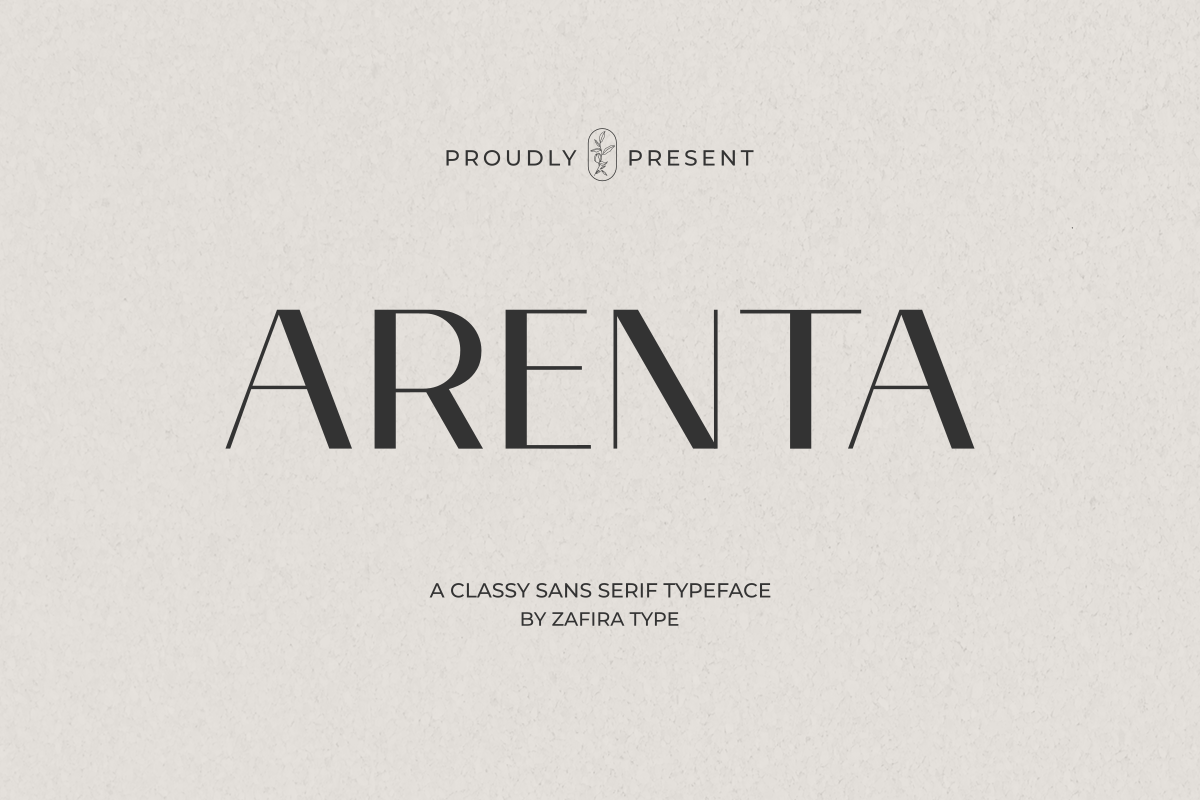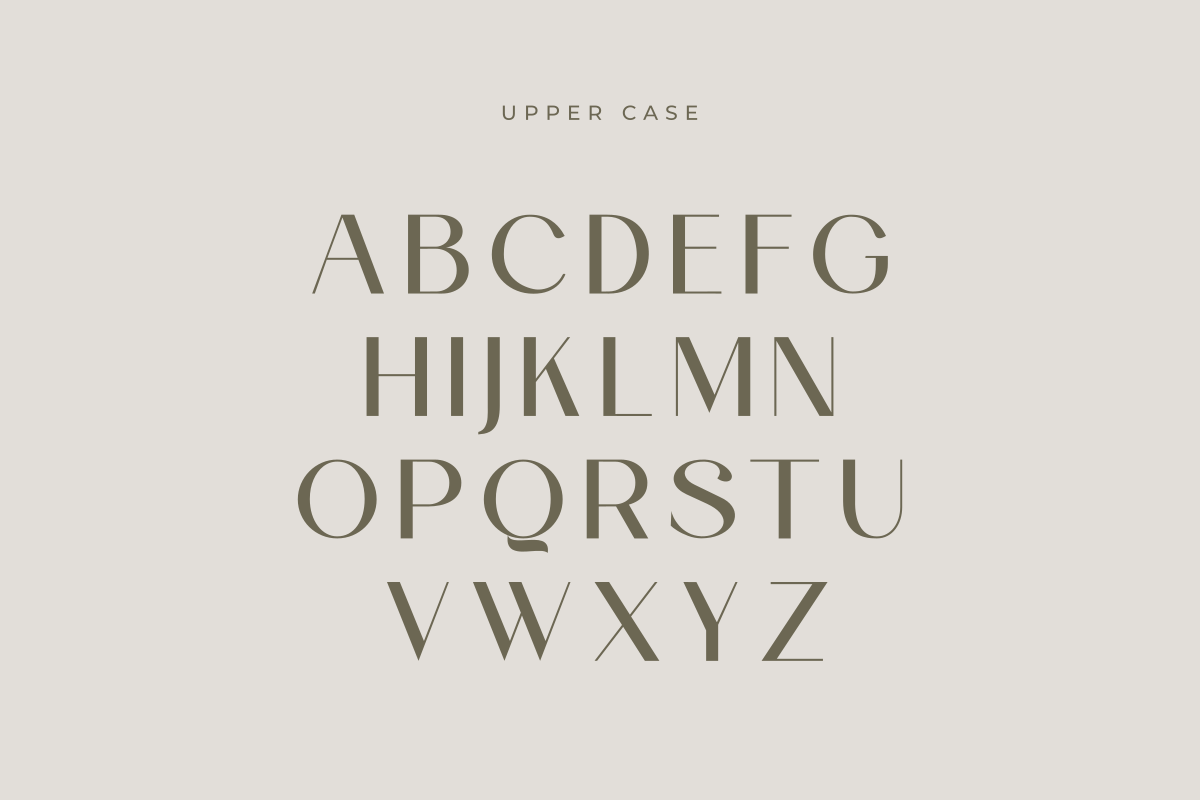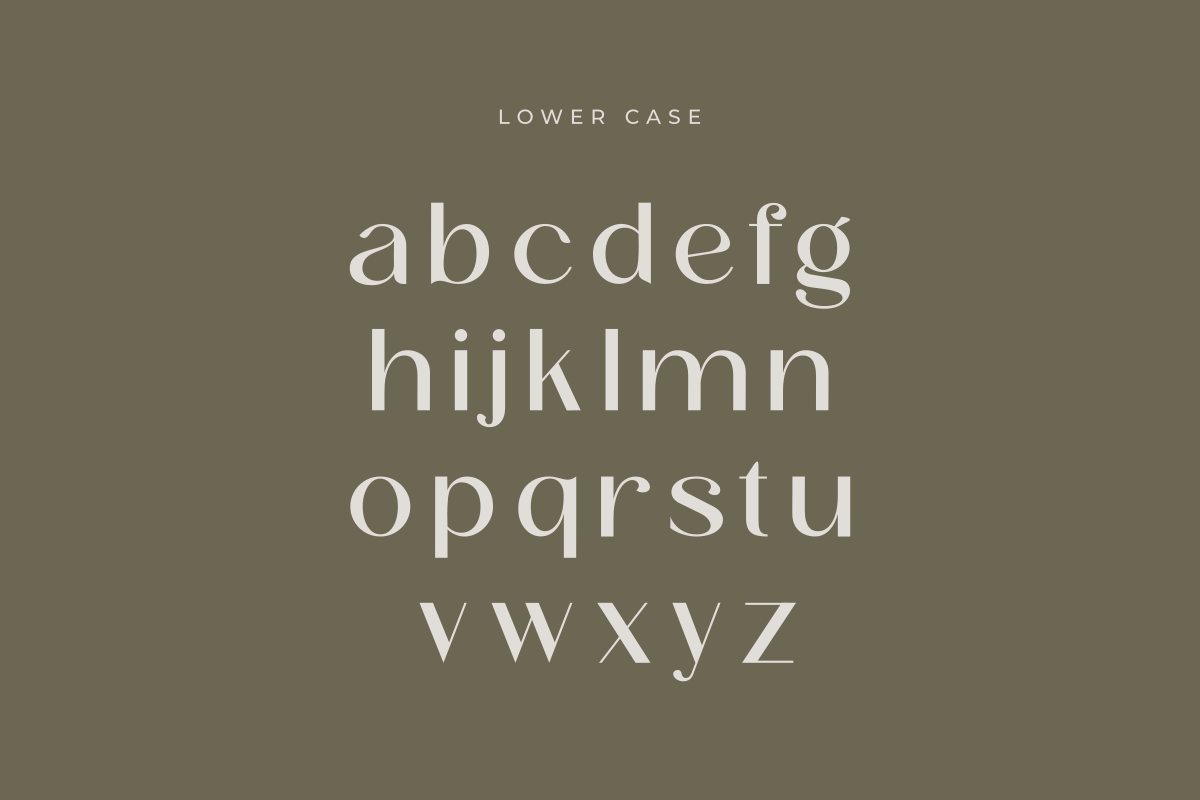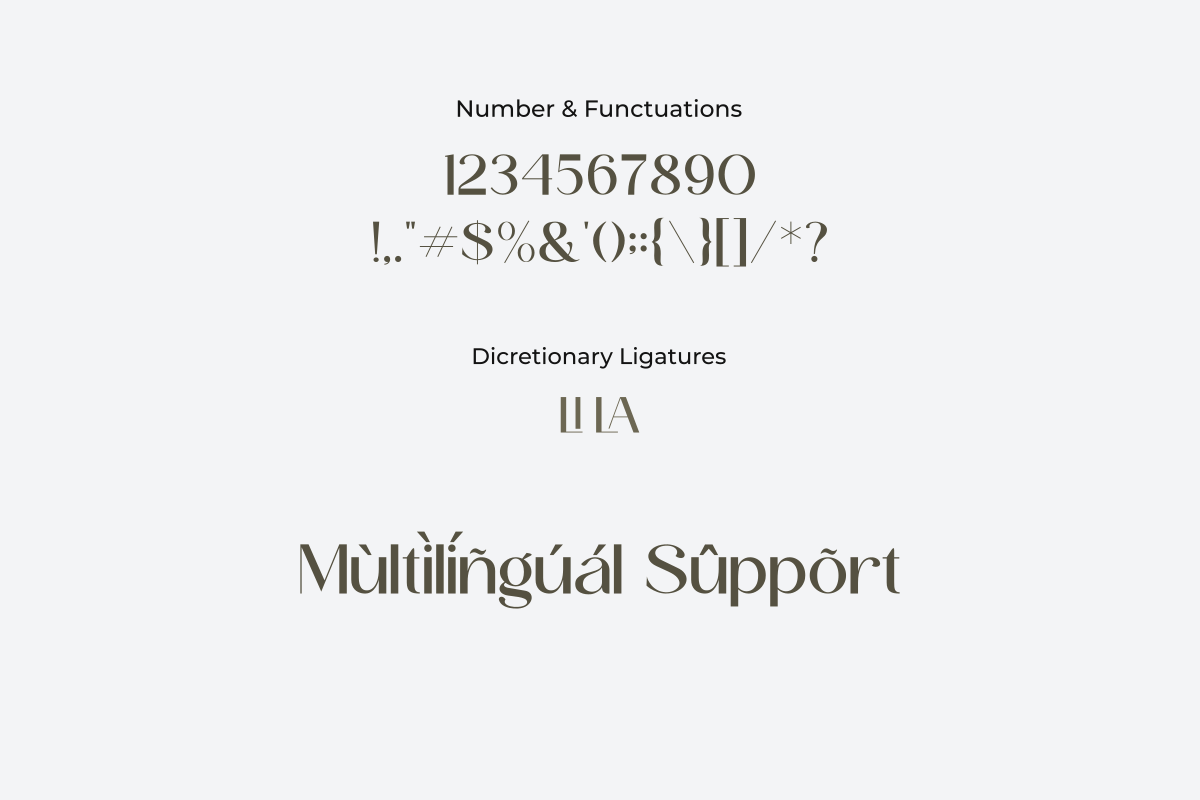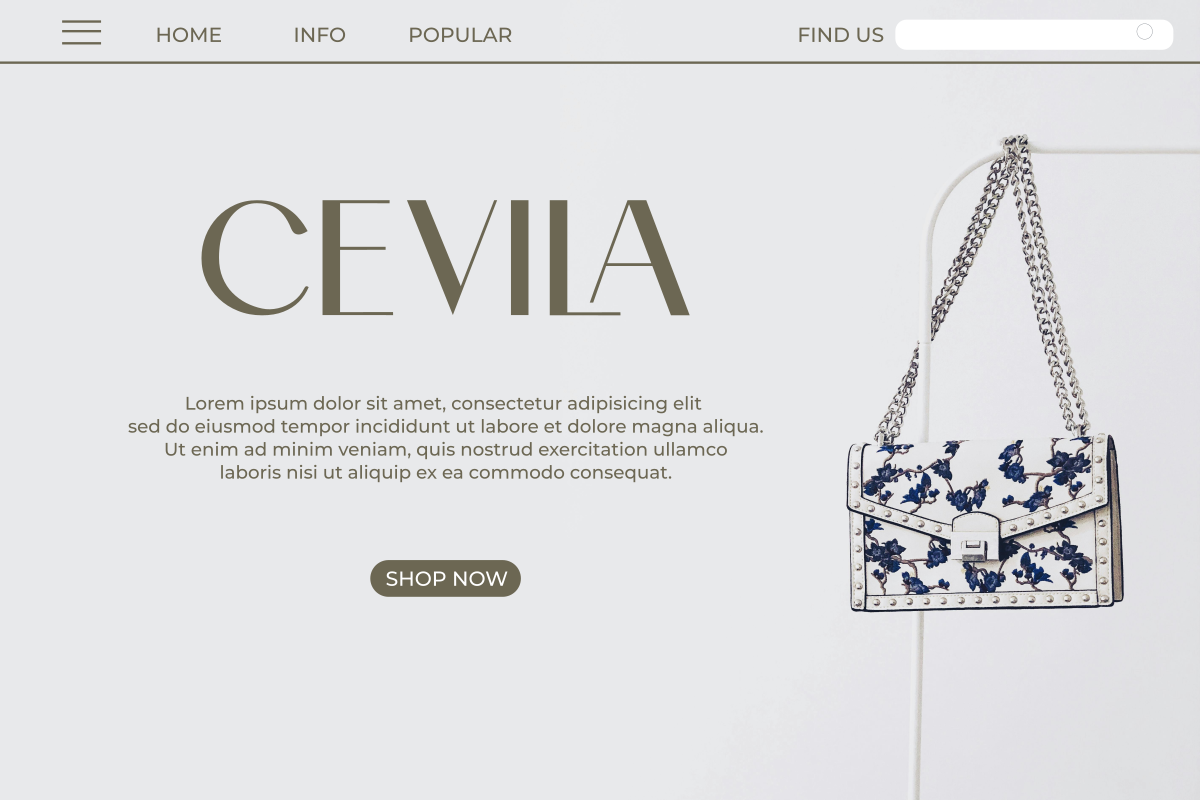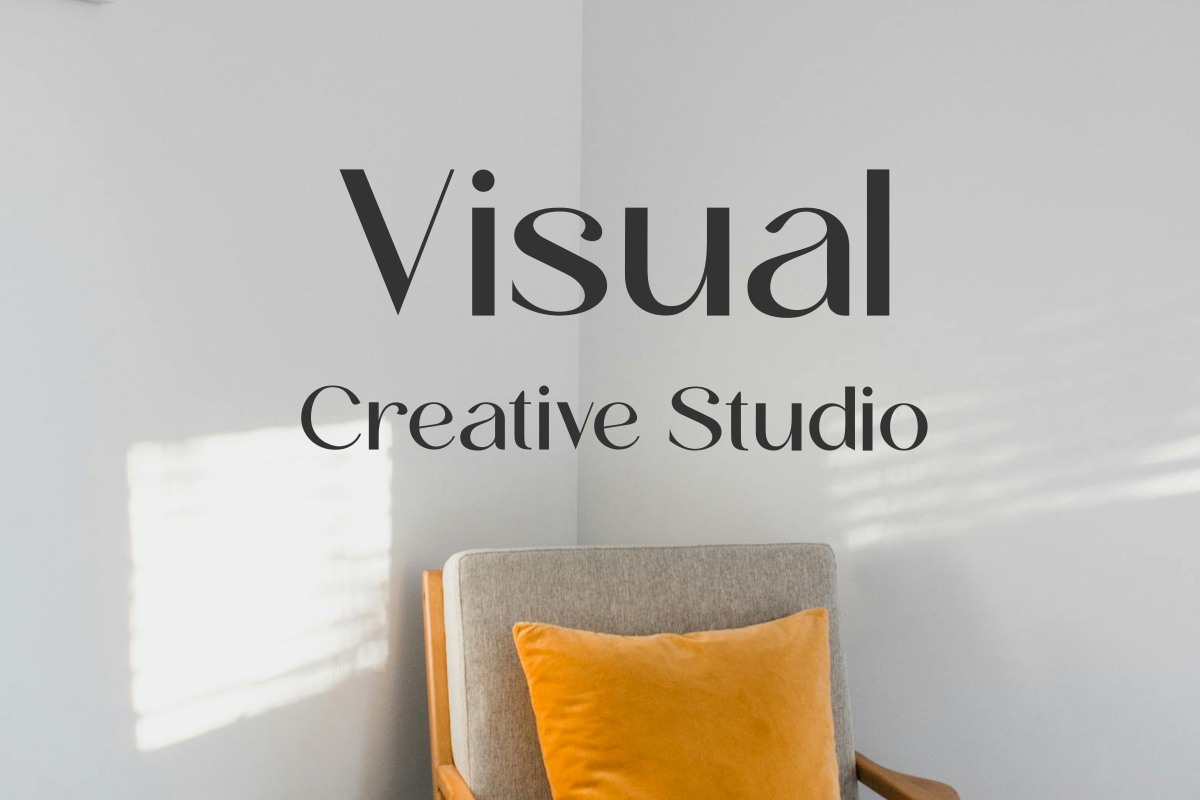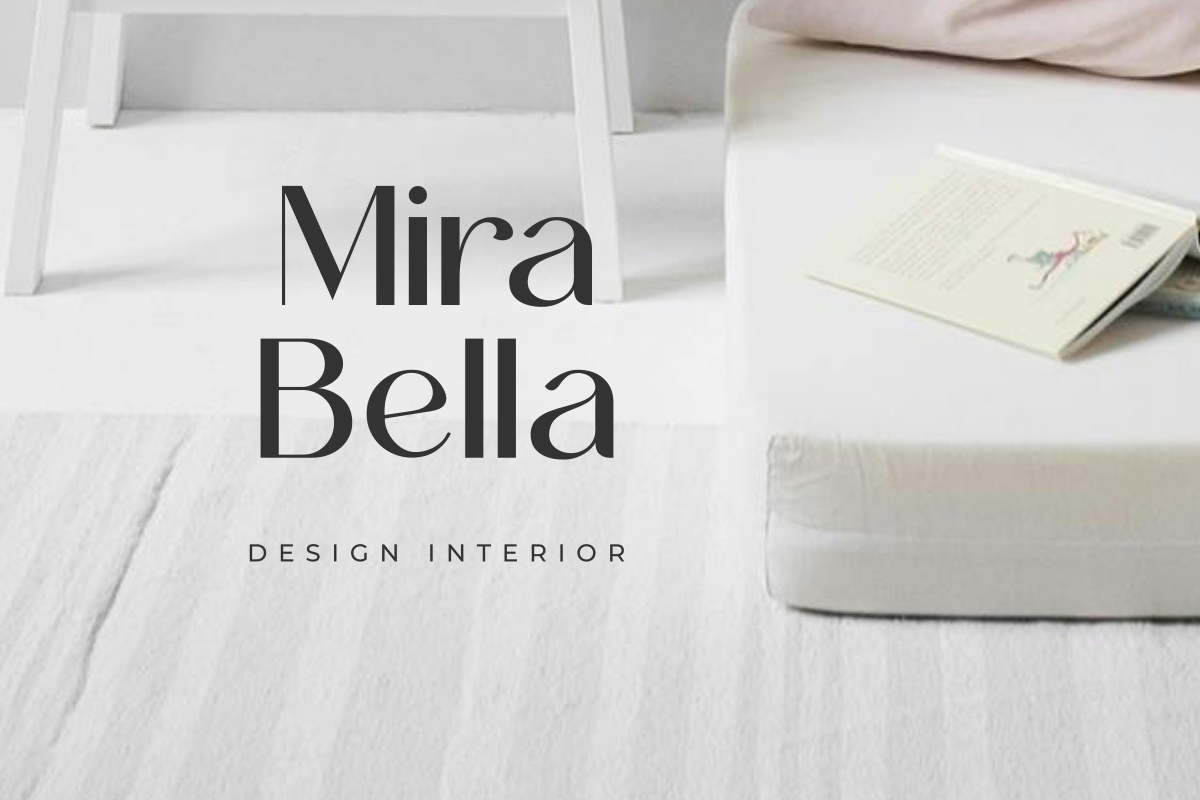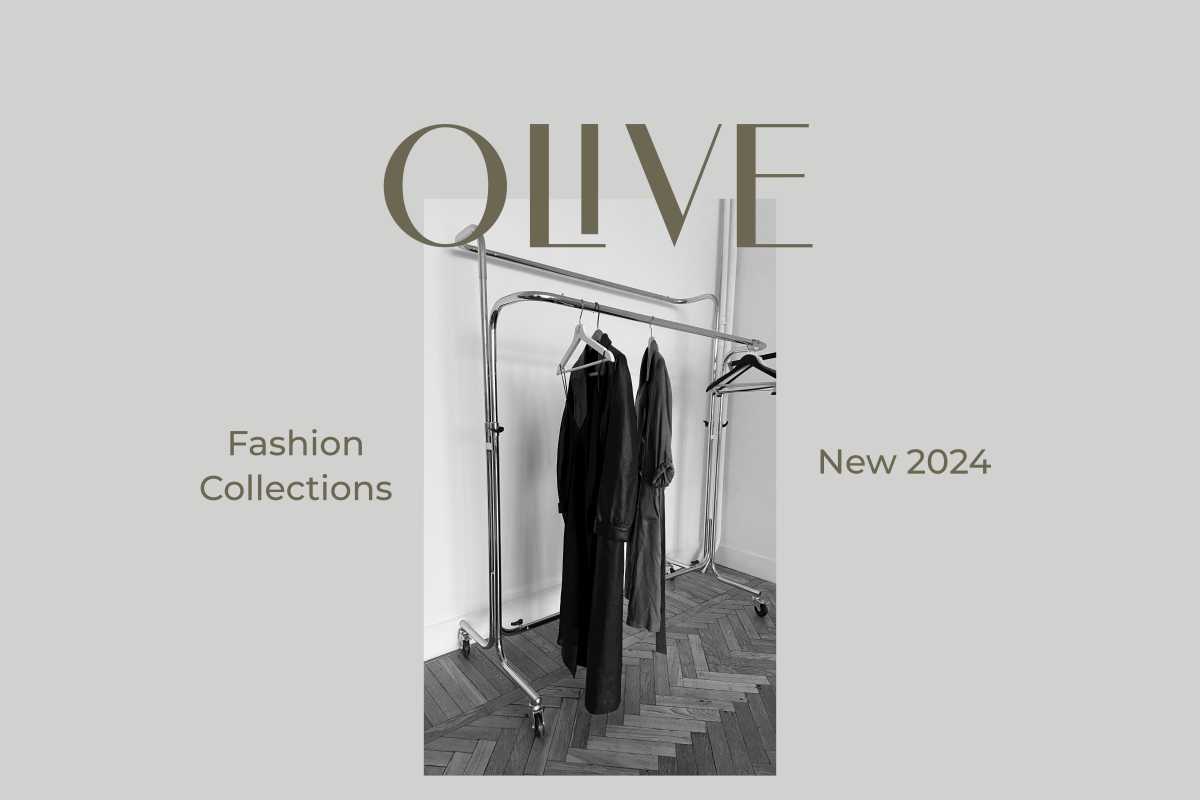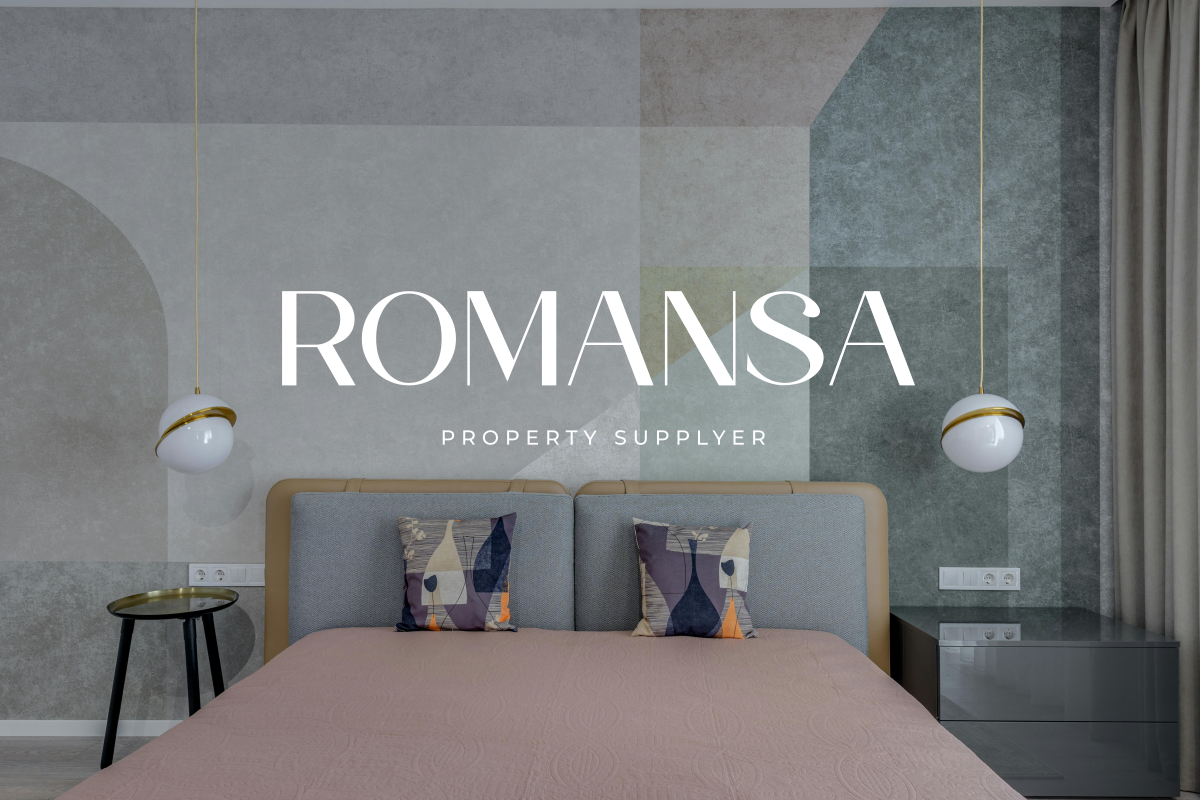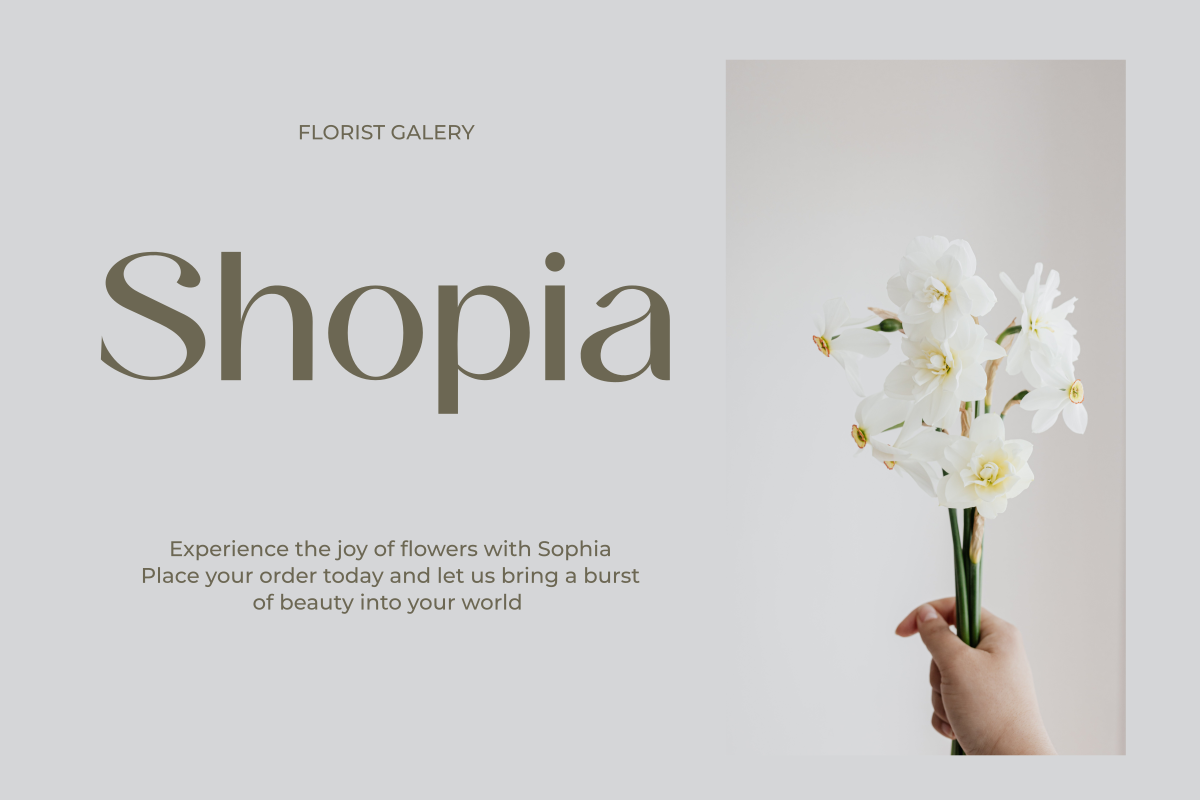
Arenta
Arenta is a modern sans-serif font that offers a contemporary feel and remarkable clarity. With smooth lines and balanced proportions, Arenta is well-suited for various design projects, ranging from magazine layouts to branding and website design. Its elegant yet modern appearance ensures optimal readability across different platforms and text sizes. Arenta provides flexibility for designers to adjust the text appearance according to their project needs. Whether you’re looking for a standout headline font or easy-to-read body text, Arenta is the perfect choice to enhance your design quality.